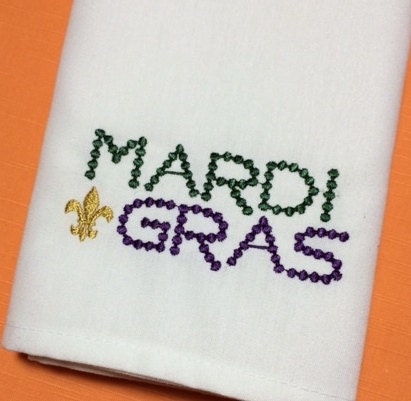
Introducing the “Mardi Gras Beads” – a fun and festive color font. Each letter is decorated with a beautiful circle beads-shaped symbol, which is perfect for all your Mardi Gras Festival-themed projects. You can use it to design products such as banners, content, mugs, cards, shirts, stationery, social media posts, and more! This font is partial and free for personal use. Commercial licenses and complete set available @ billyargel.com More info contact: Mardi Gras Personal Use.ttf Collection of fonts for Mardi Gras. Upload. Join Free. Fonts Mardi Gras. by HayleyRyder. Apr 4, 2022 2564 17. Download 123 fonts. Looking for Mardi Gras fonts? Click to find the best 8 free fonts in the Mardi Gras style. Every font is free to download! Check out our mardi gras bead font selection for the very best in unique or custom, handmade pieces from our digital shops. Download Mardi Gras Beads Font 3 Regular font. Mardi Gras Beads Font 3 Regular by A playful, bead-like decorative font. This font is composed of circular dots arranged to form each character, creating a playful and decorative appearance. The design mimics the look of beads, offering a unique and festive style. Mardi Gras. Appropriately named, Mardi Gras is a fun, festive font with lots of swirls and embellishments. This font is ideal for Mardi Gras party invitations, Carnival flyers, parade signs and more. When you go to the FontStock website, you can preview exactly how your text will appear prior to downloading the Mardi Gras font. About Mardi Gras Font. Mardi Gras Font is a Vintage font and was created on Jan 25, 2023. Since then, it has been downloaded 456 times and added to 28 collections. 1 people have liked Mardi Gras Font and given it a thumbs up. Mardi Gras Font was recently updated on Sep 6, 2024 DETAILS special creative products for you, our products will give you an extraordinary experience. the latest style letters are perfect for wall displays, wedding invitations, social media post logos, The first thing I did to find inspiration for my typography design was to go to font-sharing sites to look for Mardi Gras fonts. To my surprise, there were only so many fonts, let alone free fonts, to choose from. And even those available for purchase fonts looked as if nearly 9 out of 10 graphic designers have already used them long before me. Mardi Gras Bead Font Machine Embroidery Design Design Information: 3.8" x 1.7" 98 x 43 mm 5507 Stitches Welcome to Sprouts Embroidery Designs! The design will be Click here and download the Watercolor Mardi Gras Bead Tree Png graphic · Window, Mac, Linux · Last updated 2025 · Commercial licence included Fonts, Classes Click here and download the Mardi Gras Bead Sublimation graphic · Window, Mac, Linux · Last updated 2025 · Commercial licence included Fonts, Classes & more Watercolor Mardi Gras Bead Tree Clipart Bundle ** You will receive ** 👉 22 PNG file This file is 3600 x 3600 pixels at a high resolution of 300 DPI. 2. Are the Mardi Gras SVG files free to download? Yes, the Mardi Gras SVG and Mardi Gras Mask SVG files available on our website, lovesvg.com, are all free to download and use. You can find them in the “Free SVG Cut Files” section under “Decorative Elements”, “Holidays and Celebrations” and “Mandala Decorative Elements.” 3. Can Mardi Gras Hat Beads Motif Embroidery Design. Special Price $2.00 Regular Price $4.00. Add to Cart. Font Type. Sign up for Our Newsletter. For Deals, New Arrivals $3.99/month, billed as $47/year (normal price $348) Discounted price valid forever - Renews at $47/year ; Access to millions of Graphics, Fonts, Classes & more Walk It Like A Bead Dog – Mardi Gras Fat Tuesday Design. Celebrate the vibrant spirit of Mardi Gras with our ‘Walk It Like A Bead Dog’ design! Featuring a playful balloon dog adorned with colorful beads and festive accents, this design captures the essence of Fat Tuesday in New Orleans. (144 pcs. per unit)Includes:• 24 Plastic Metallic Mardi Gras Half Masks (Each with an elastic band. 6 3/4")• 96 Plastic Metallic Tri-Color Mardi Gras Beaded Necklaces (30" with 6mm beads on a breakaway cord.)• 24 Satin Personalized Mardi Gras Drawstring Bags (8” x 10” Personalize with 2 lines of text.)•